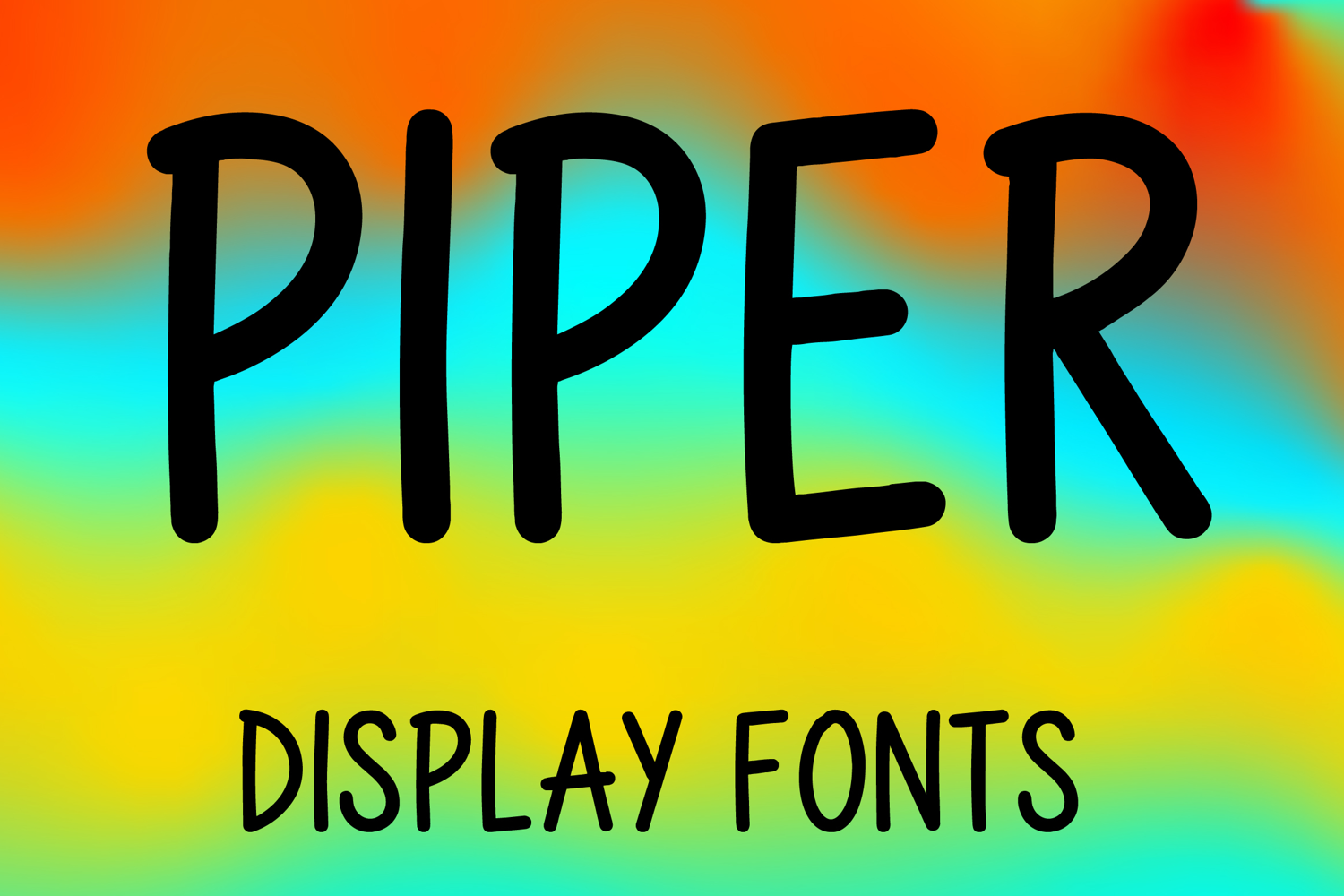
PIPER
PIPER is a playful display font with a tall hand-drawn style and clean modern charm. Its uppercase letterforms feature slim elongated strokes, softly rounded corners, and slightly uneven handcrafted details that create a friendly, stylish, and eye-catching look. Designed with uppercase letters A–Z and numbers 0–9, PIPER is perfect for branding, posters, packaging, logos, social media graphics, and creative projects that need a fresh and memorable statement.